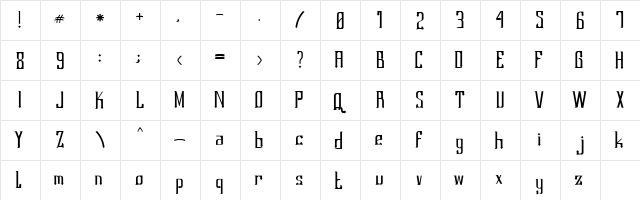
Tanggul Market Regular
Design Context for Tanggul Market Typeface
Tanggul Market offers clean, dependable letterforms without strong stylistic allegiance, making it a practical choice for designers who need flexibility.
Pro Tip: Use Tanggul Market in both headline and body roles to test its range before committing to a single application.